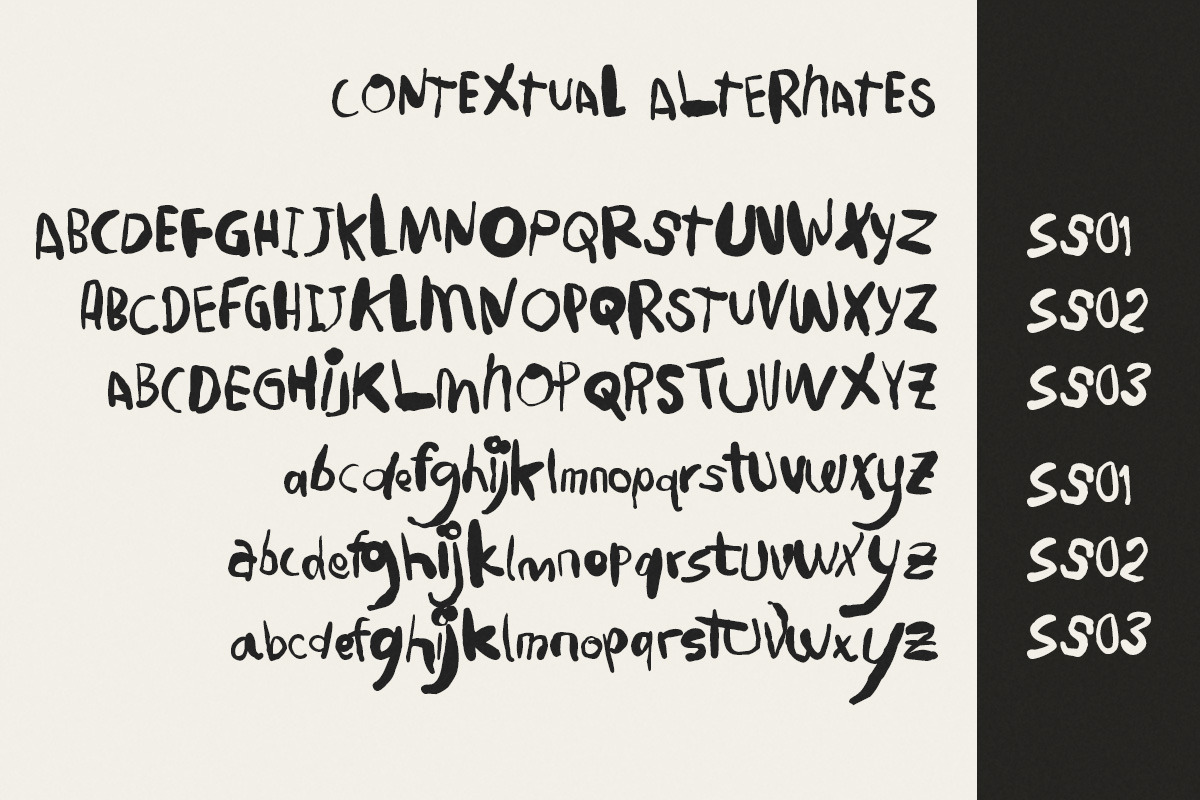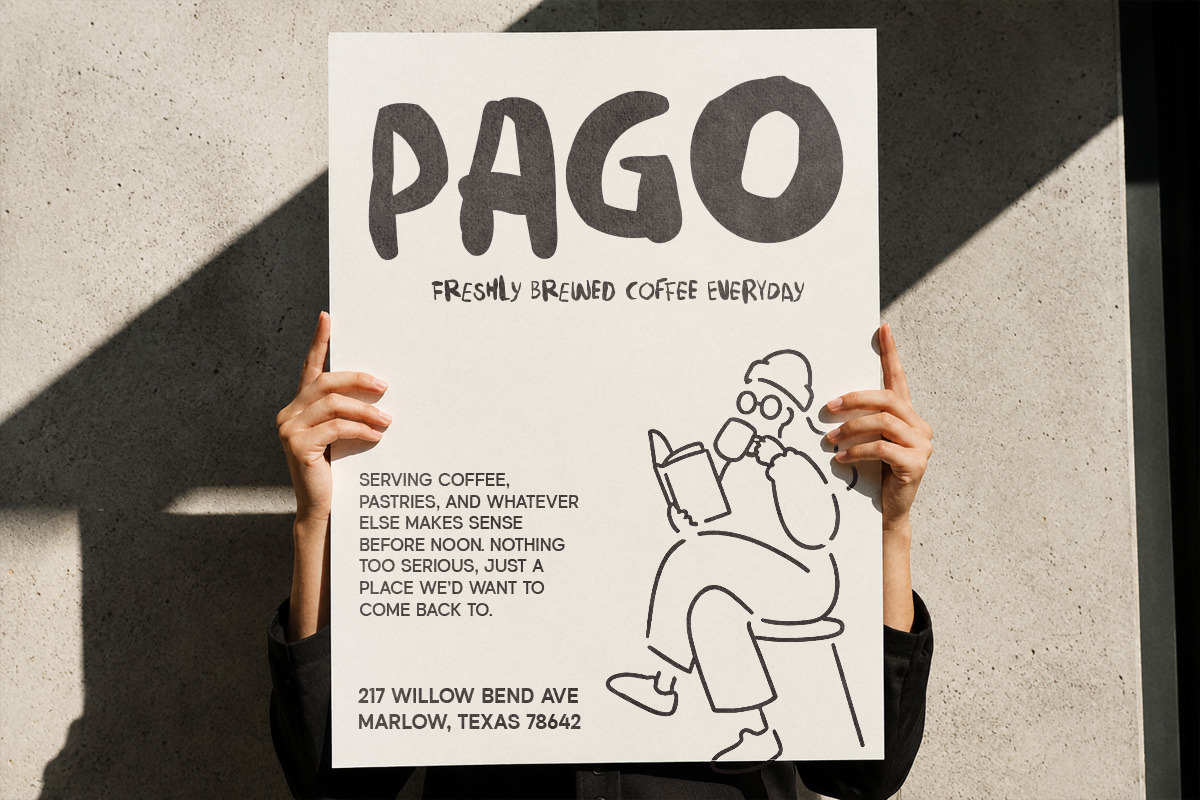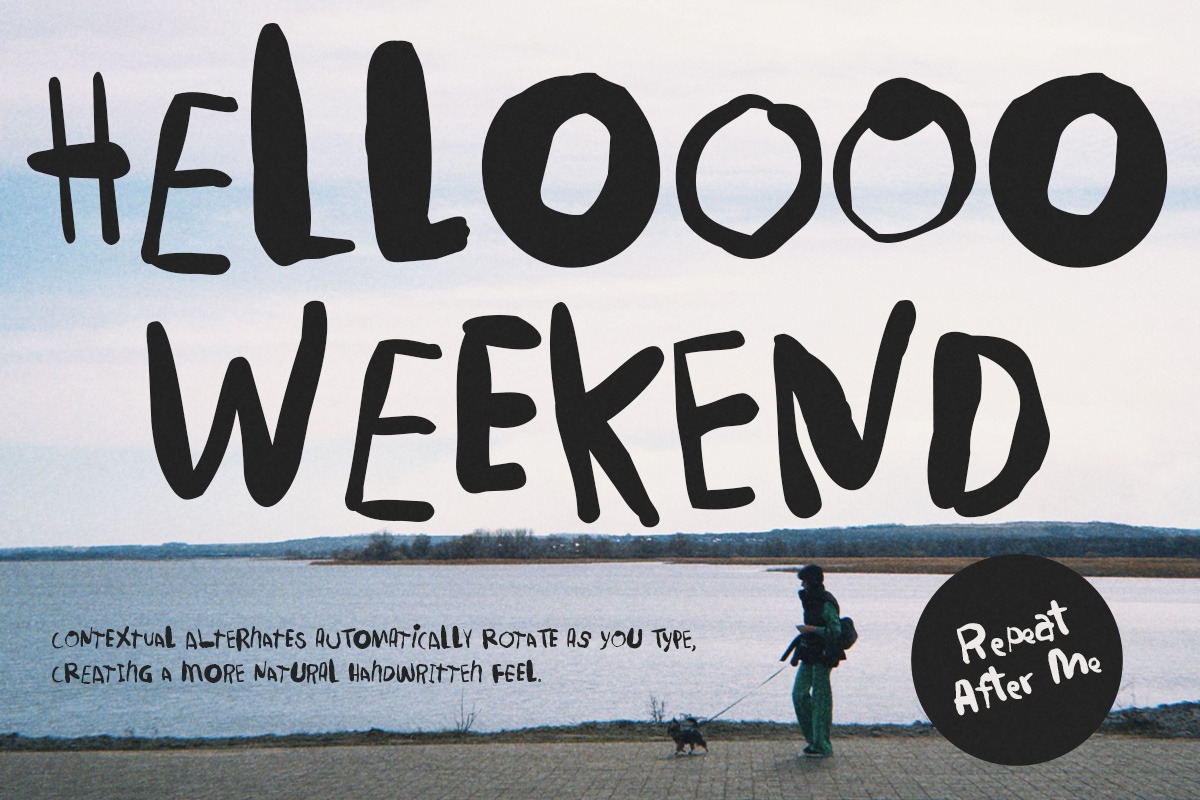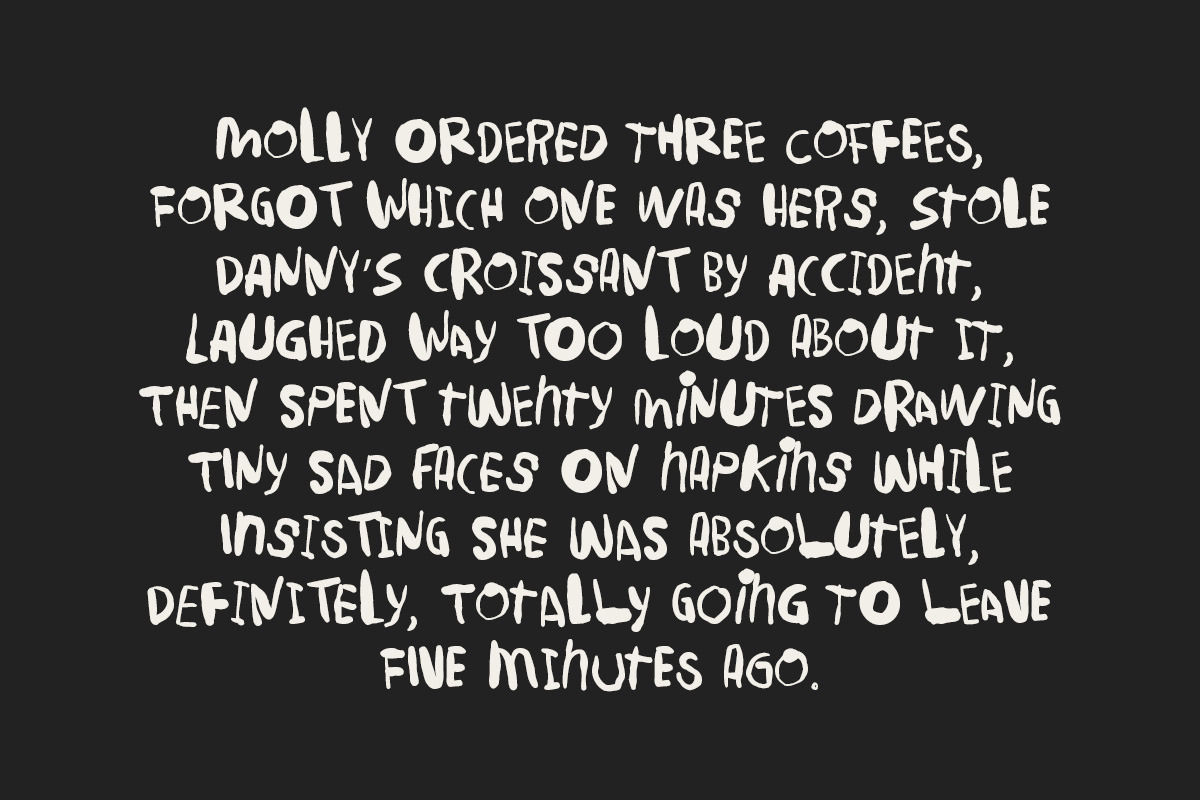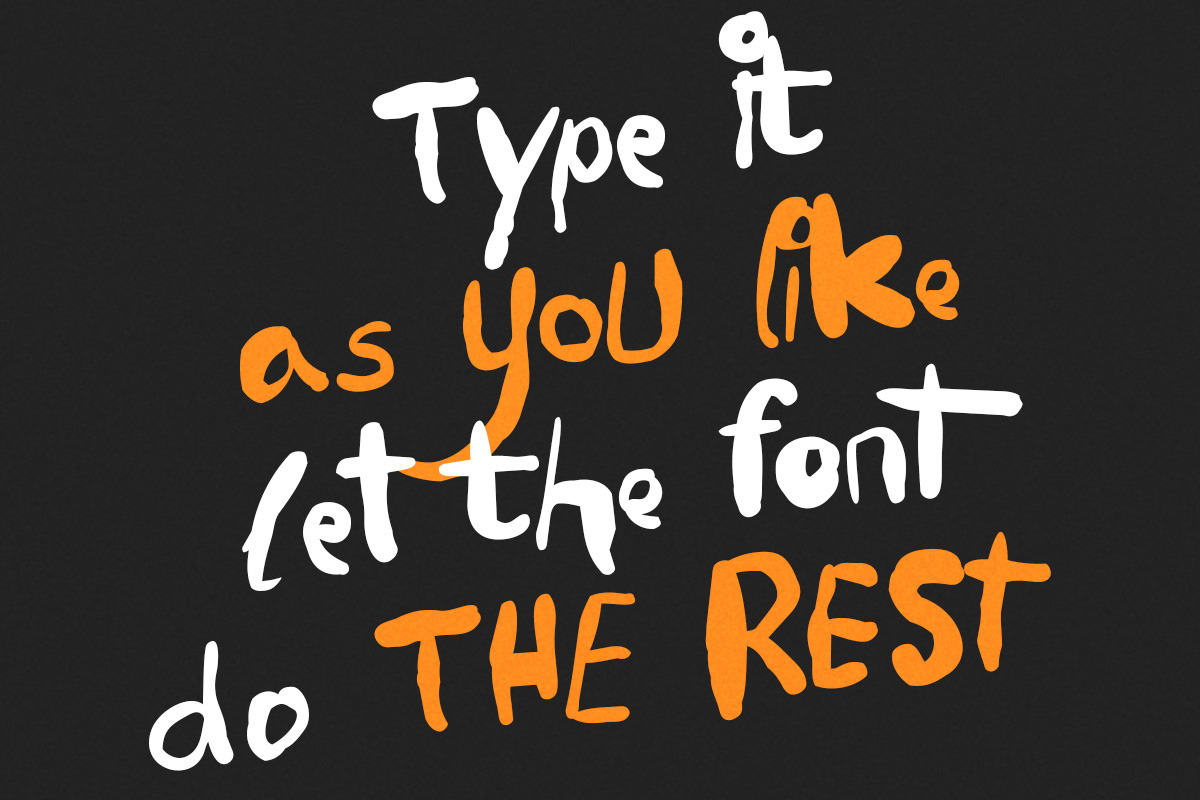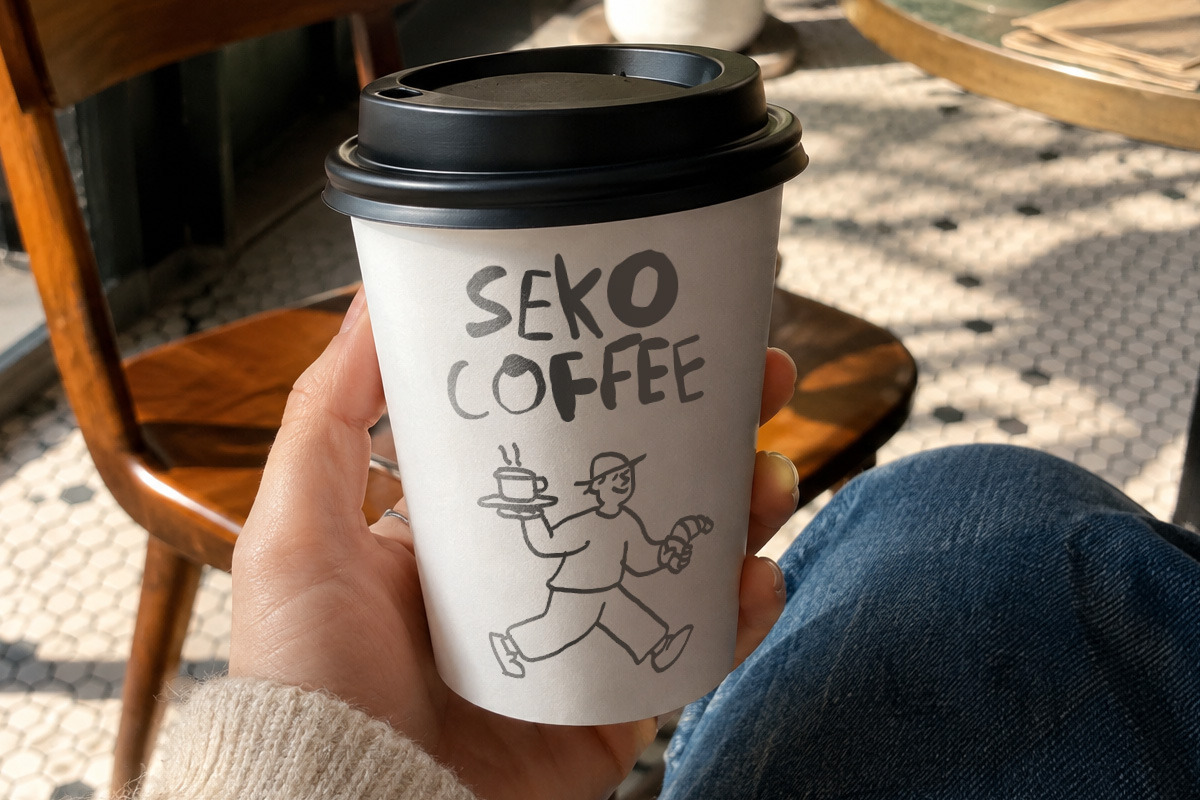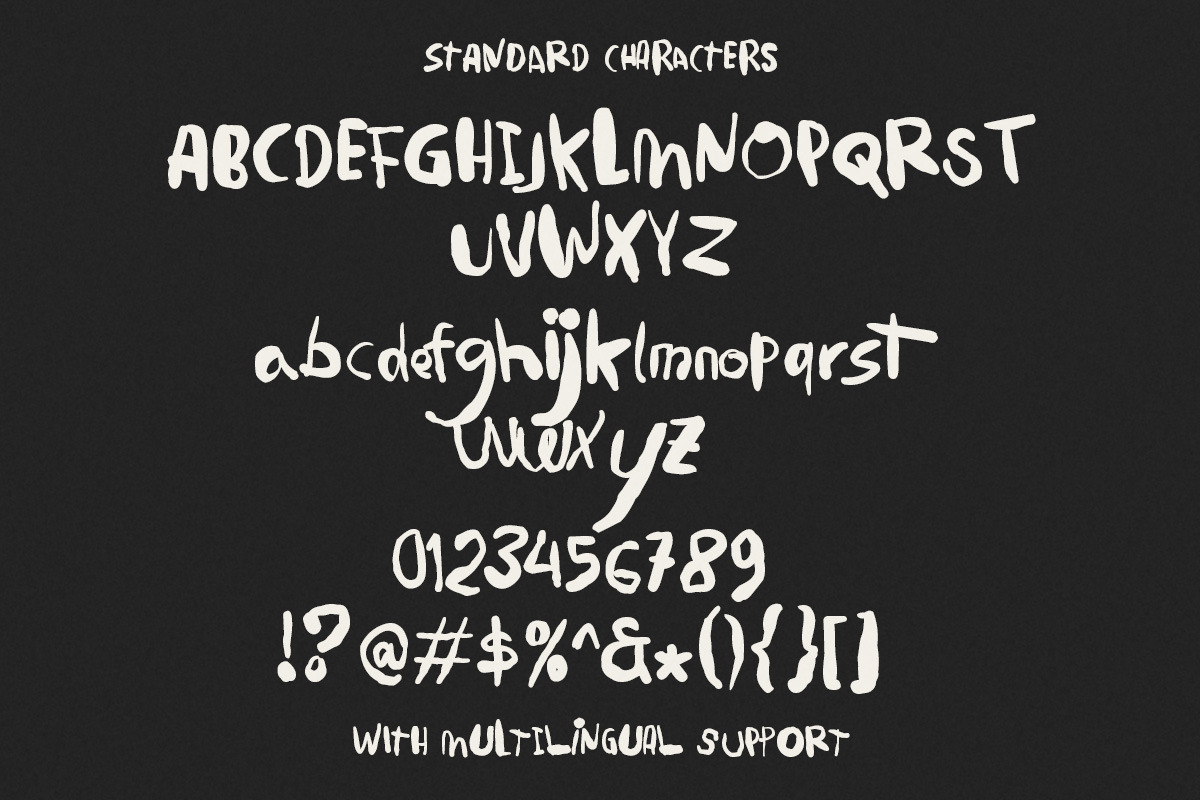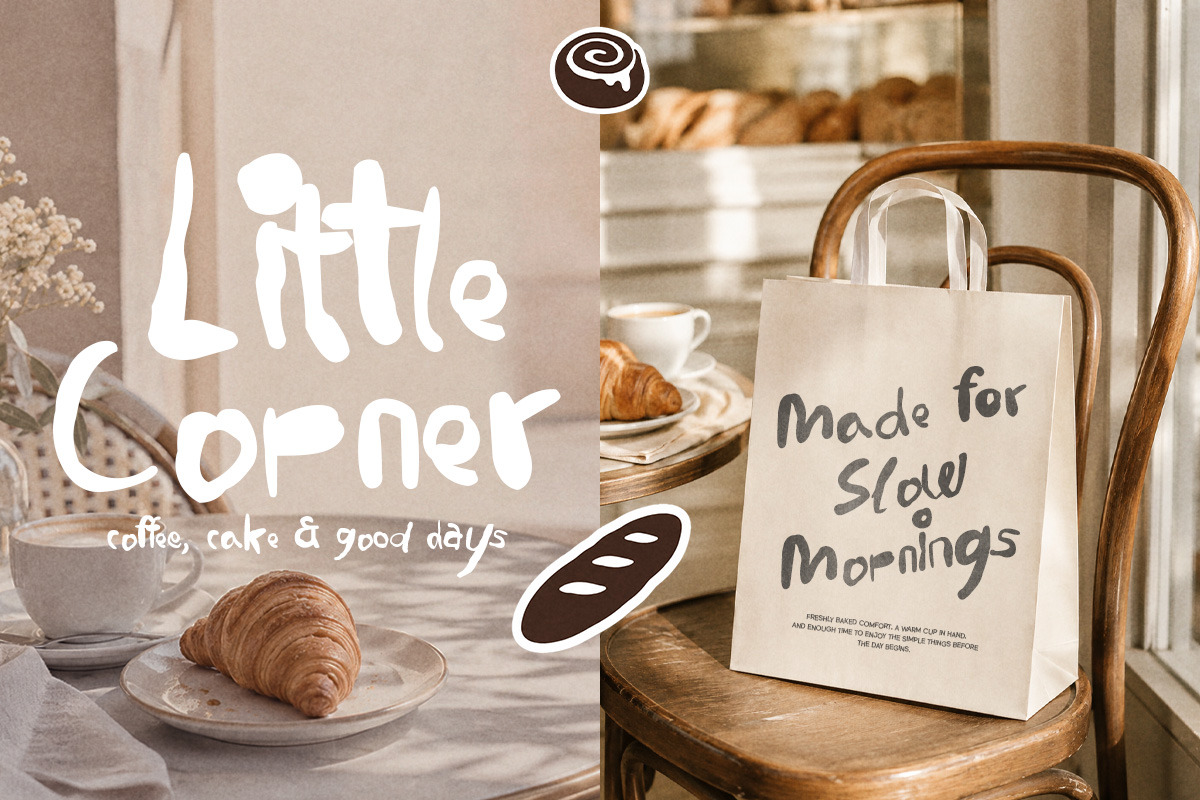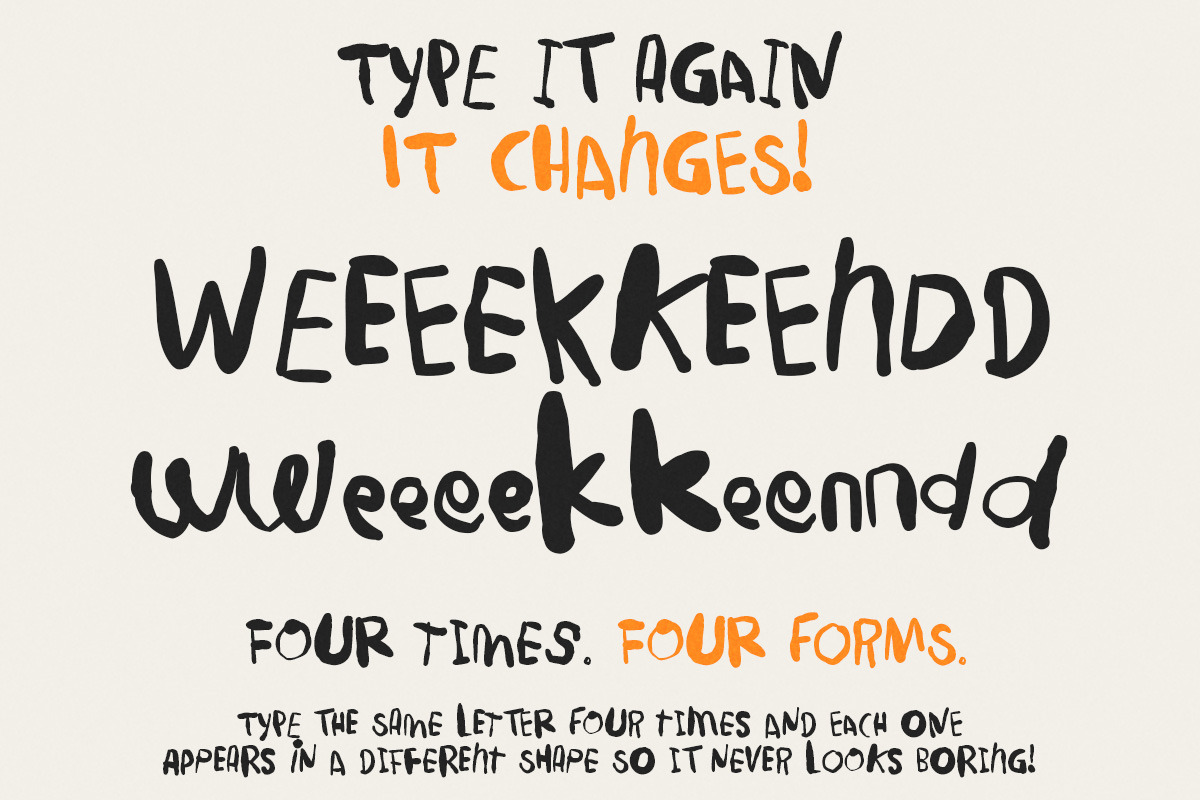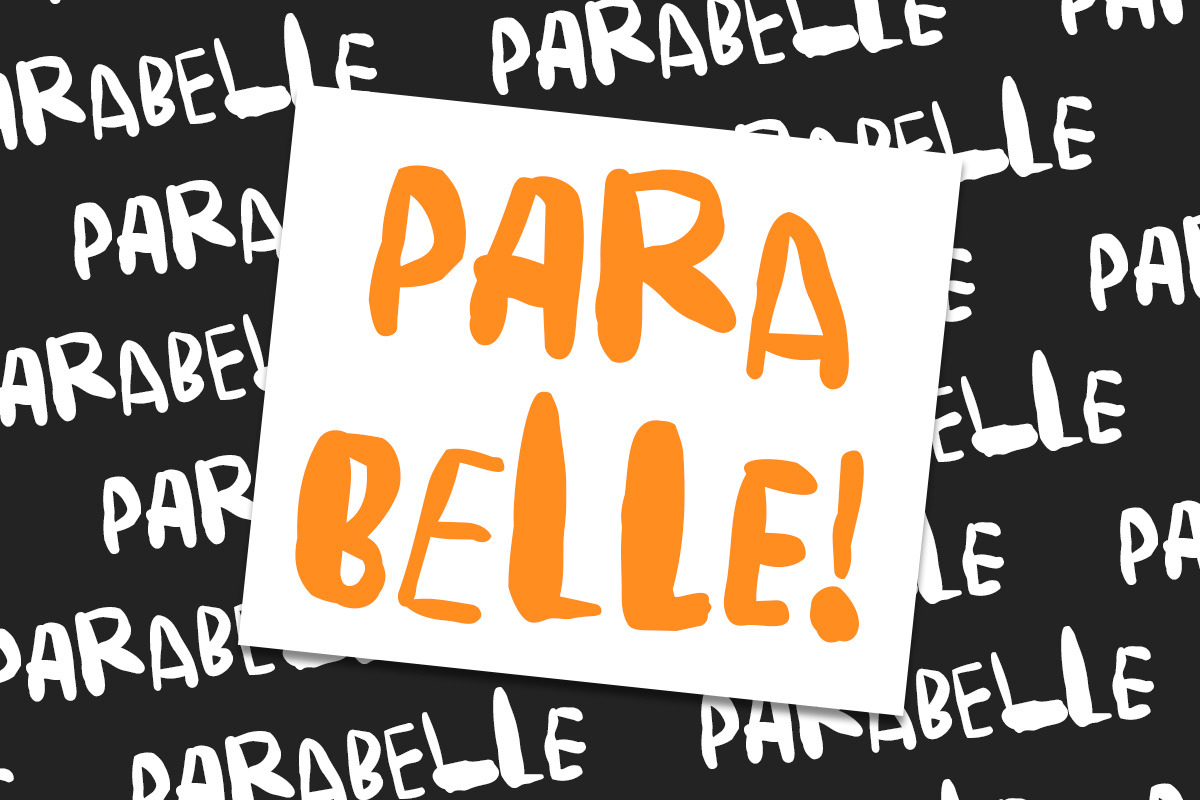
Repeat After Me – Messy Handwriting
Repeat After Me is a bold, quirky handwritten font with a wonderfully unpredictable personality. Its chunky strokes, wobbly shapes, and playful proportions give every letter a raw, expressive feel, while contextual alternates naturally shift as you type to create a more spontaneous handwritten rhythm.